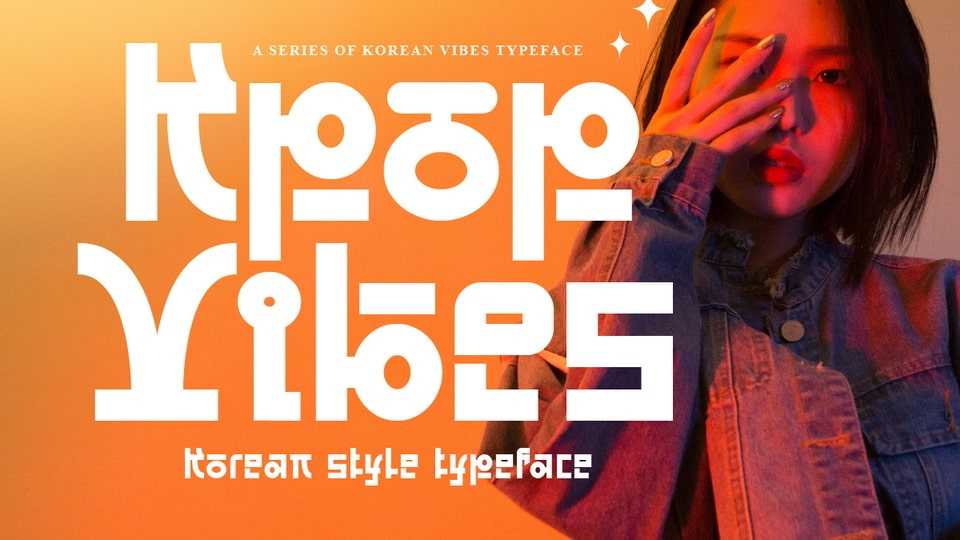
Kpop Vibes Font › Fontesk – Download Grátis
Download Kpop Vibes font, a display typeface inspired by the emerging Korean culture that grabbing the worldwide actuation in so many realms of the industry. Kpop Vibes is a sans-serif font with bold and strong vibes to catch up with today’s graphic design trends.